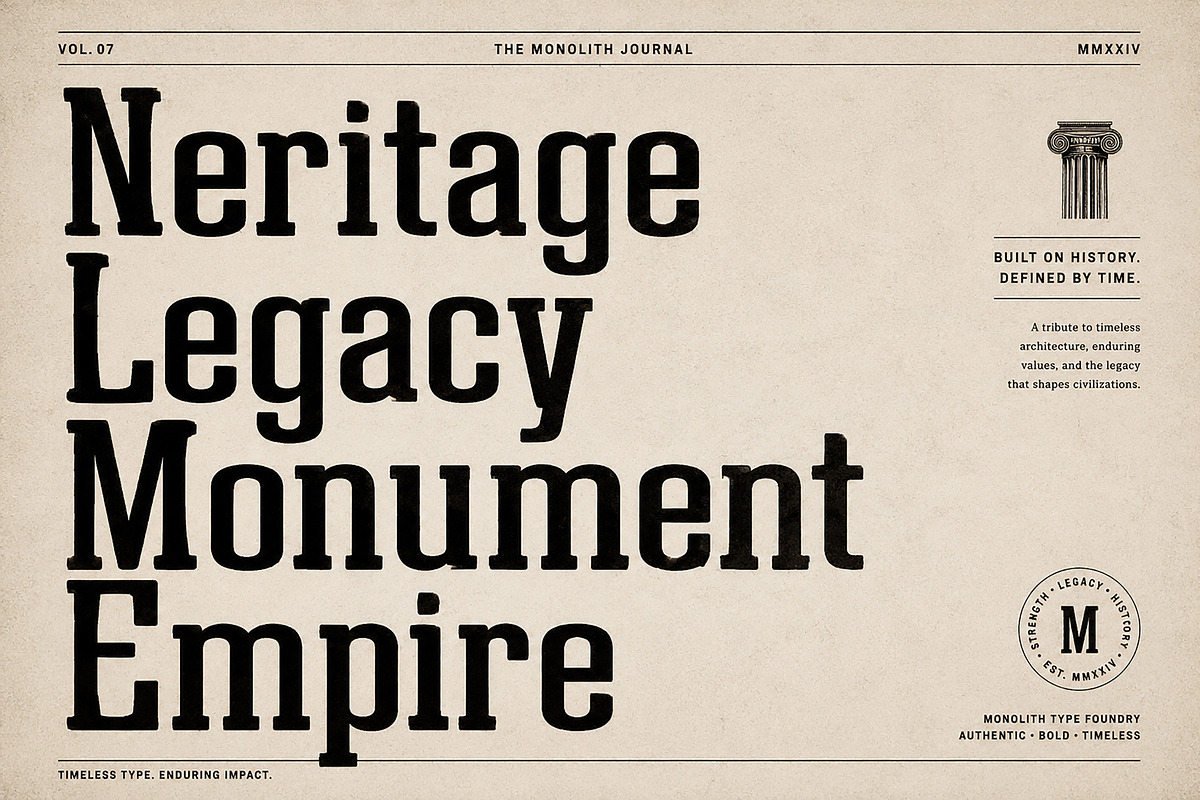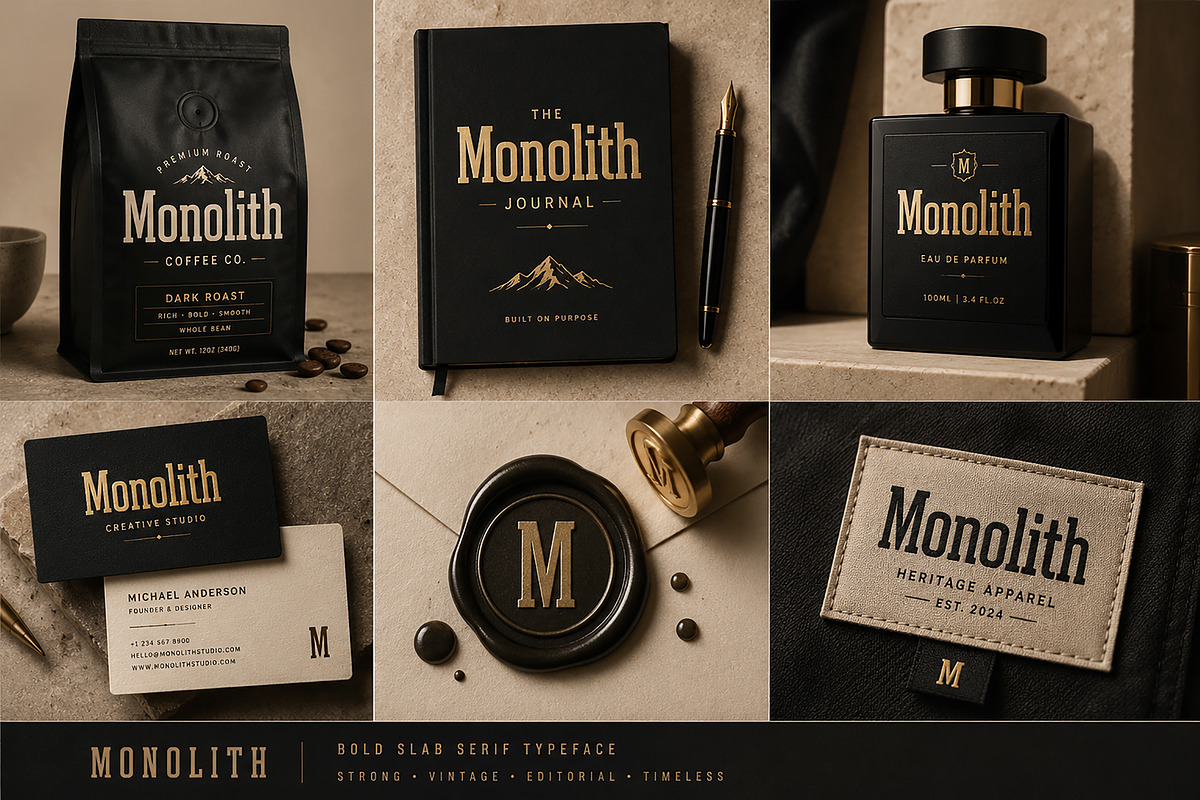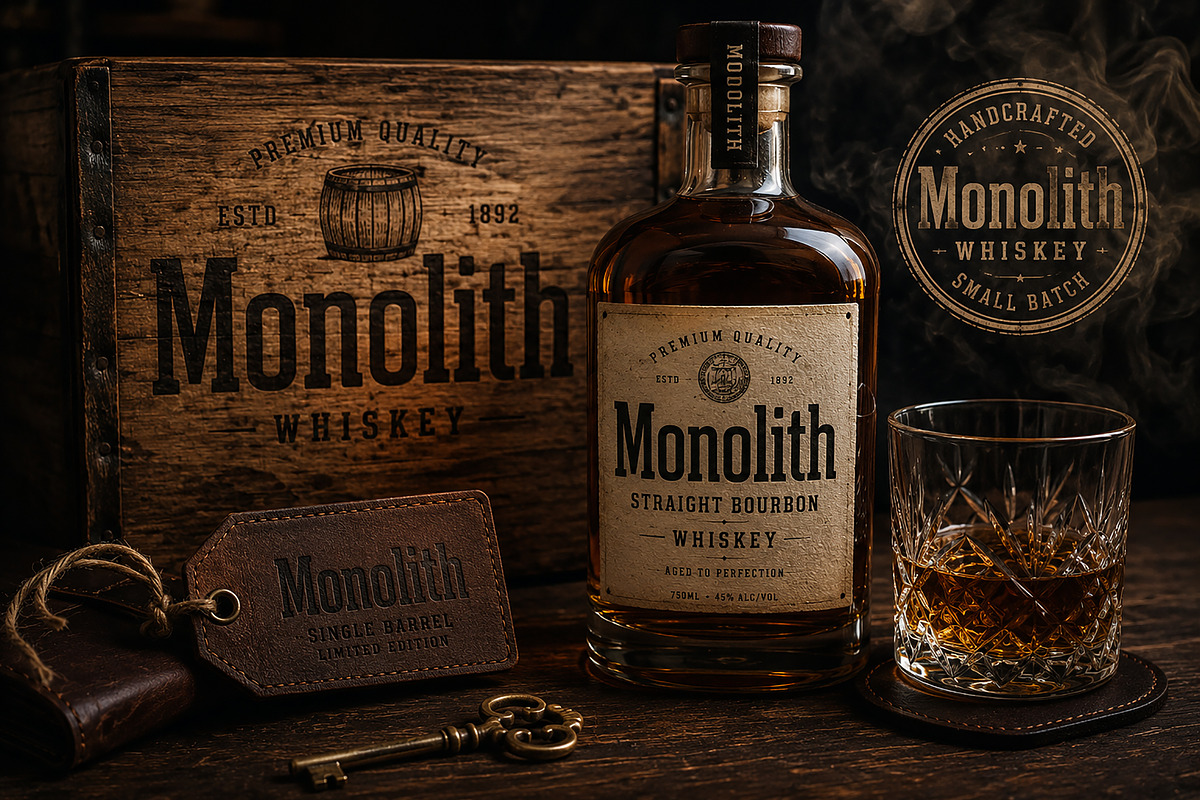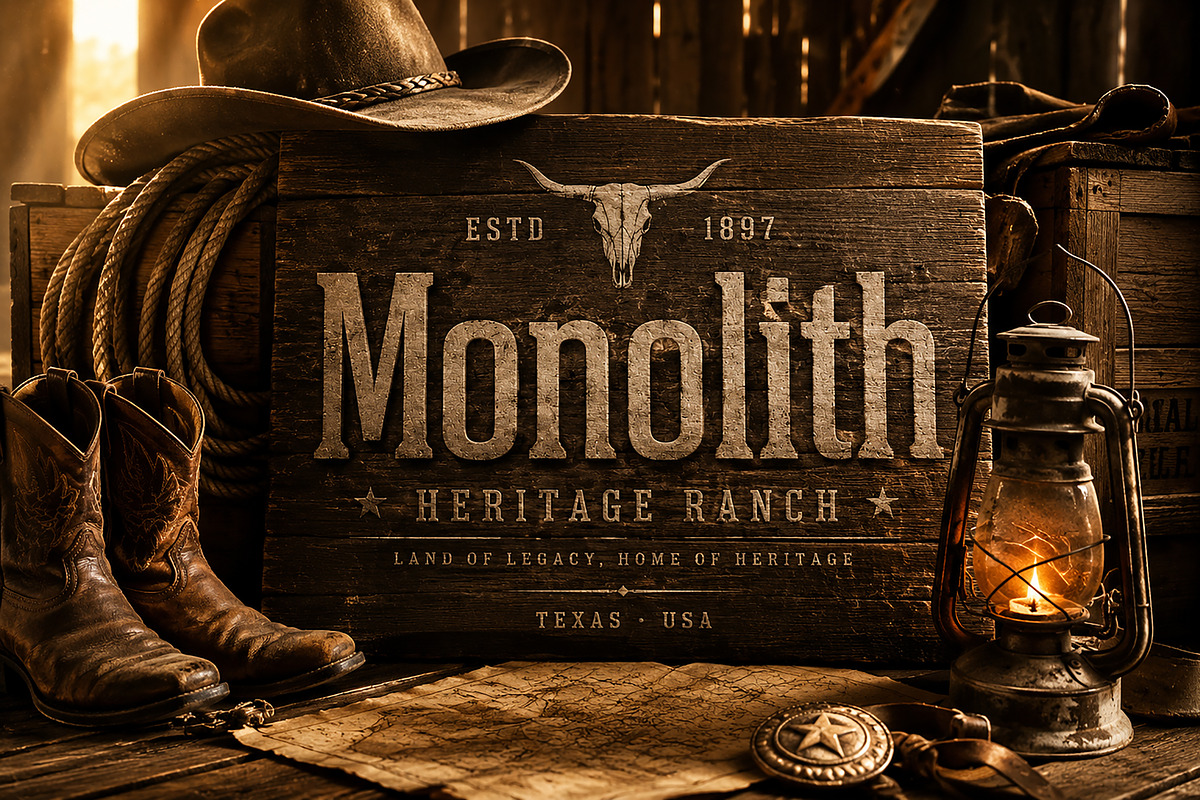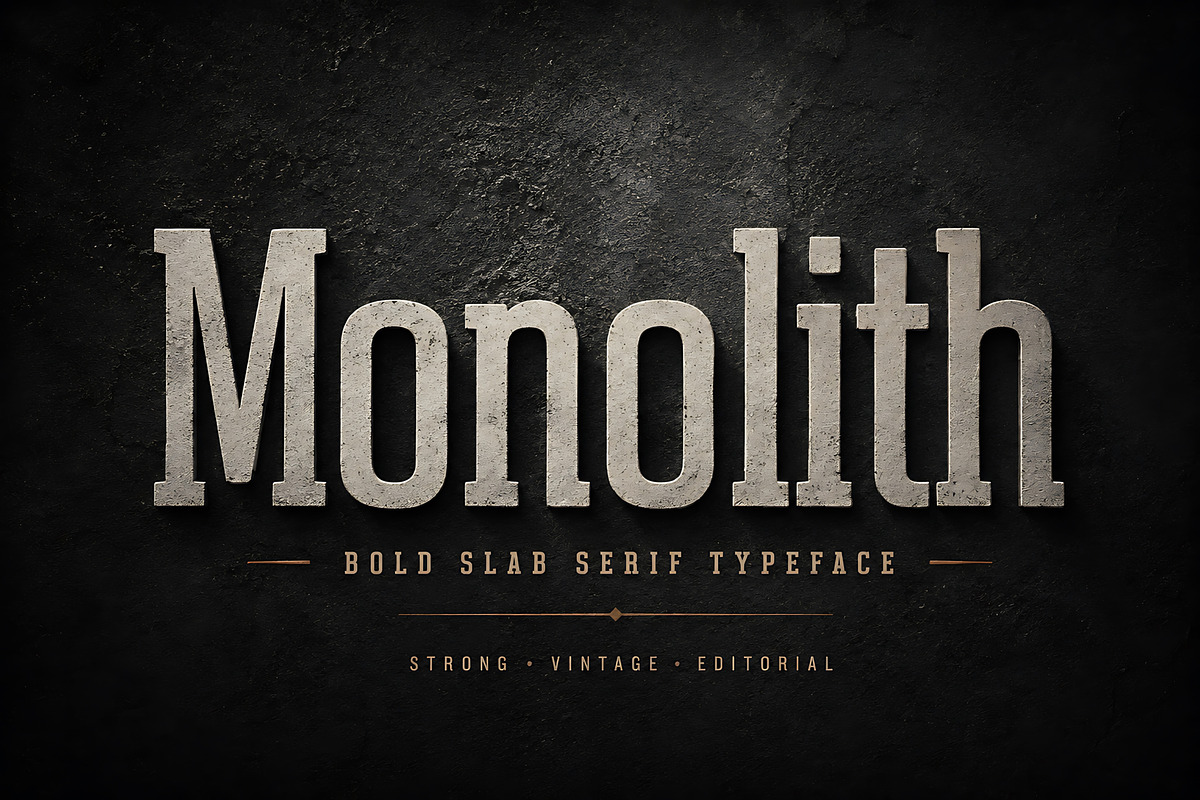
Monolith
Monolith – Bold Slab Serif Typeface
Monolith is a bold slab serif typeface crafted to deliver strength, heritage, and timeless character in every letter. With its solid structure, vintage-inspired details, and strong editorial presence, Monolith is perfect for projects that need a powerful and masculine touch.
Inspired by classic western signage, whiskey labels, heritage branding, and old-school editorial typography, this font blends rugged charm with premium sophistication. Its bold weight and sturdy letterforms make it ideal for logos, packaging, posters, headlines, apparel, book covers, and branding projects.
Whether you’re creating a rustic ranch logo, a luxury bourbon label, or a bold magazine title, Monolith gives your designs a commanding and memorable look.
Uppercase Letters
Lowercase Letters
Why You’ll Love It:
Strong and bold slab serif style
Vintage and western-inspired aesthetic
Perfect for premium branding
Highly versatile for print and digital
Timeless and impactful look